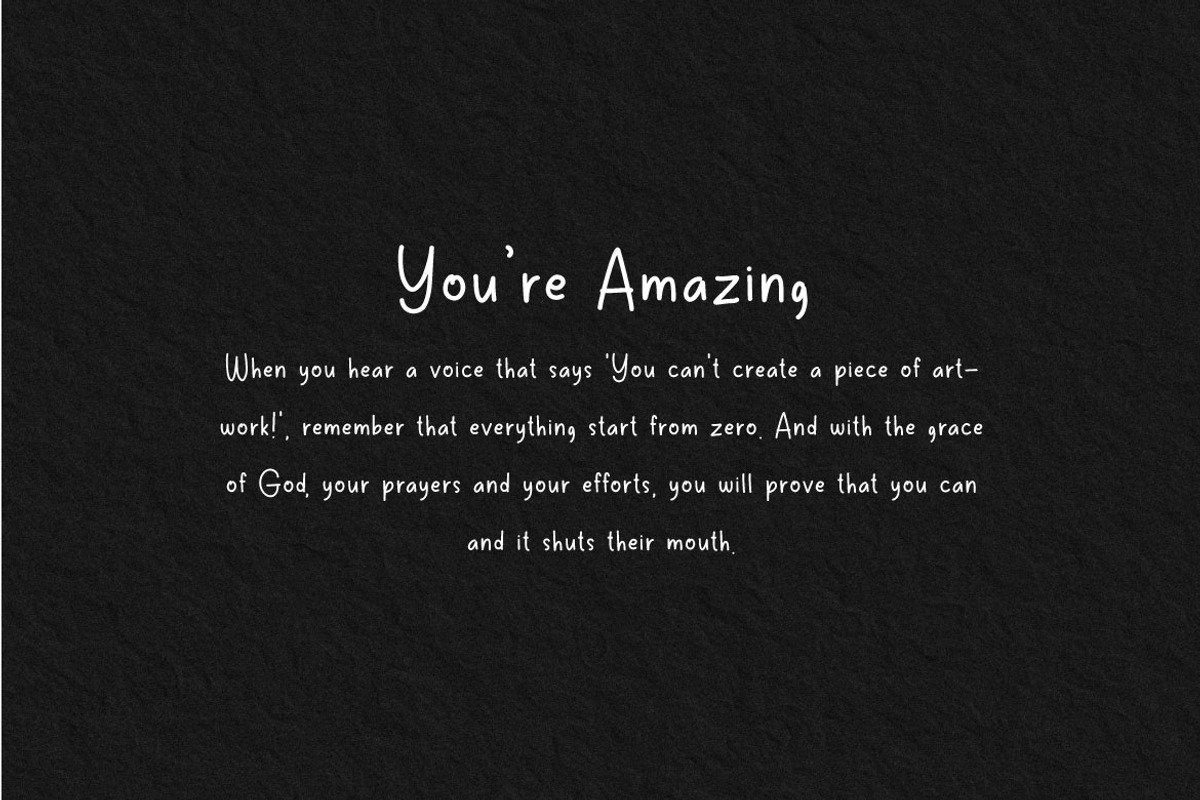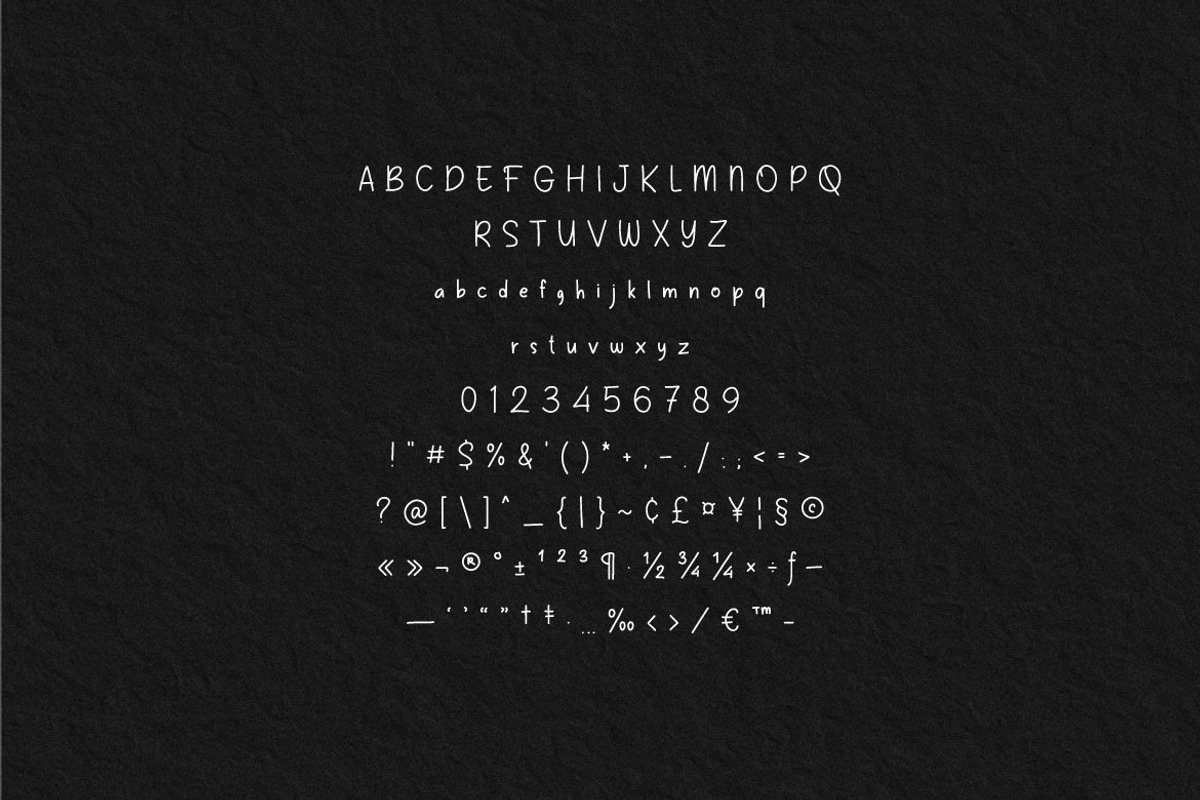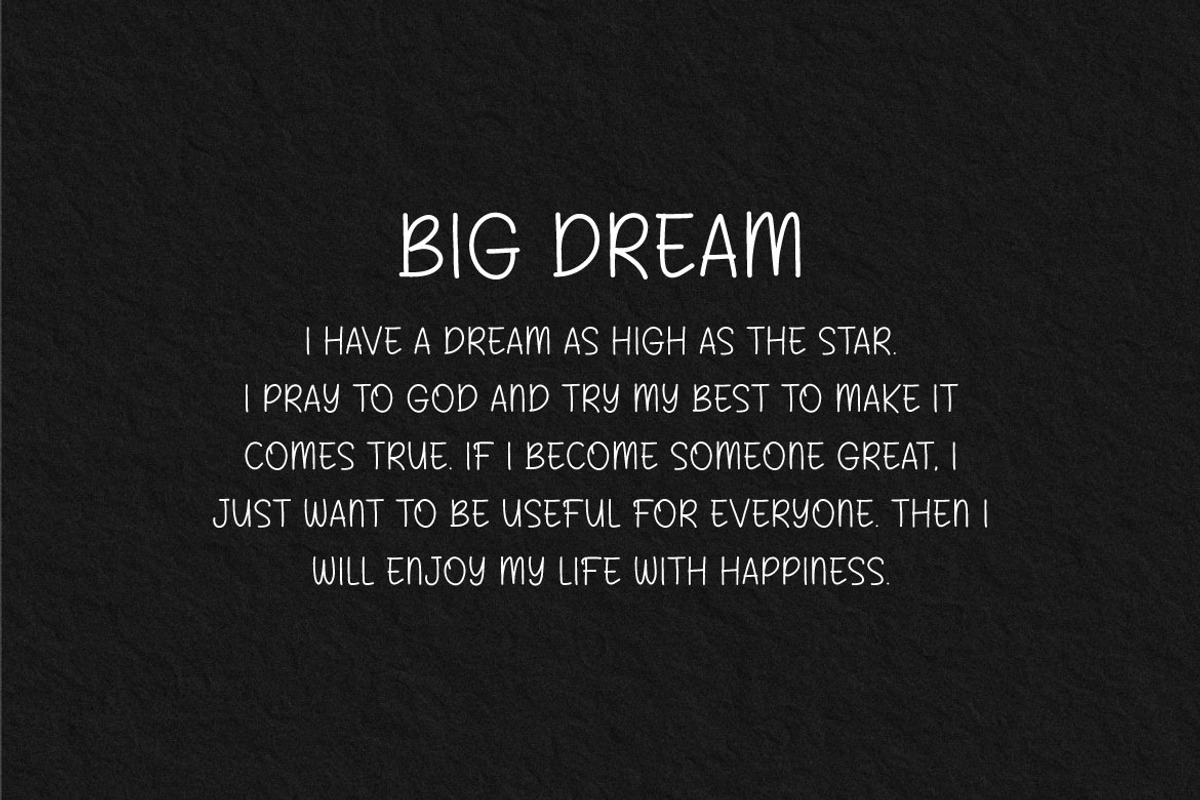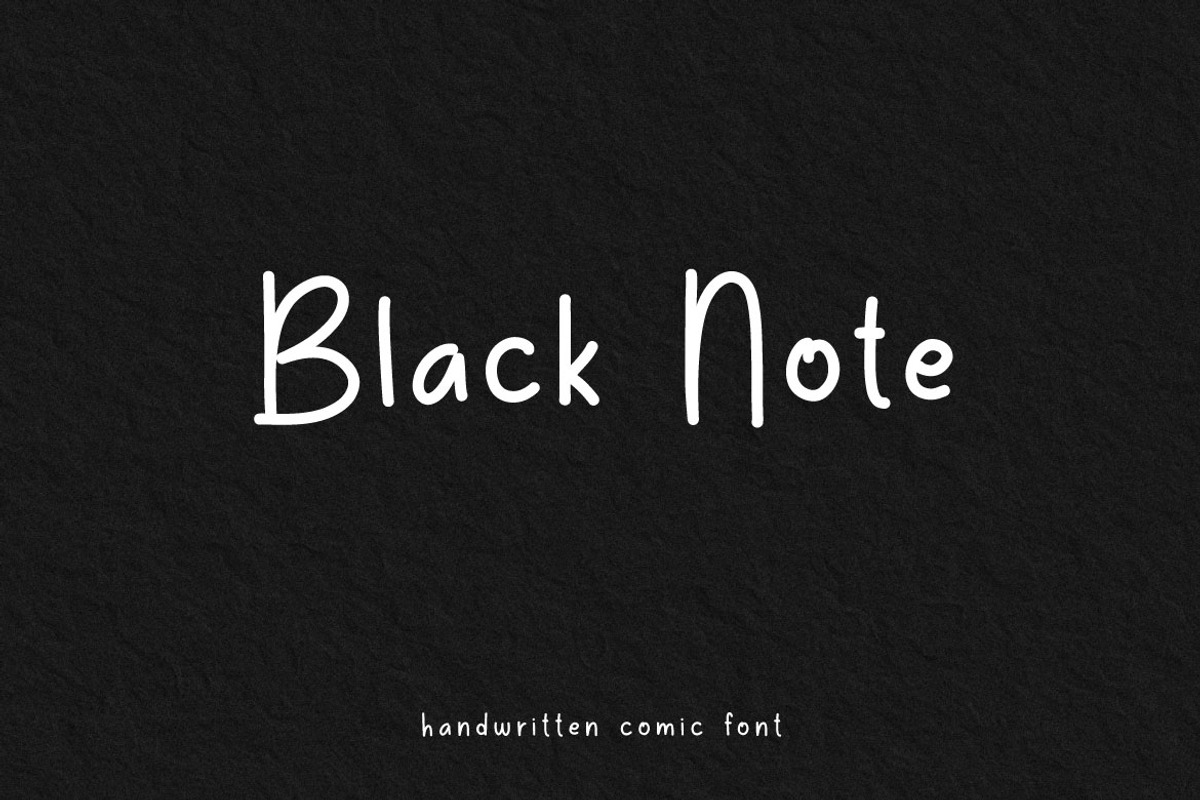
Black Note - Handwritten font
Hello! Black Note is a small handwritten font. Black Note can be used in any works such as comic book, poster, school, flyer, book title, advertisement, social media content, logo and many more.